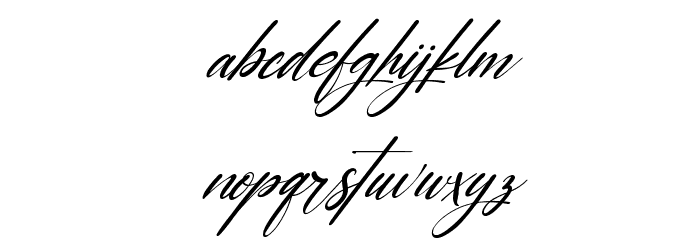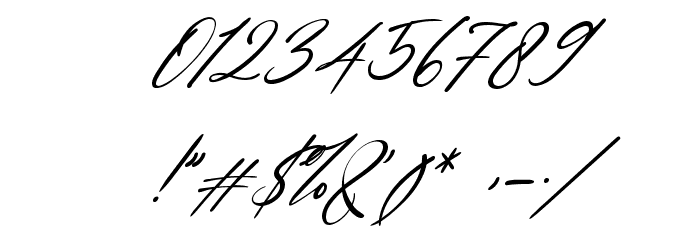
Carrie Gallerie Italic Font
This elegant script font features a flowing, cursive style with a sophisticated and artistic flair. The characters are connected, creating a seamless and fluid appearance. The strokes are smooth and graceful, with a slight slant that adds to the italicized effect. The uppercase letters are tall and commanding, while the lowercase letters are more compact and rounded, providing a balanced contrast. The numerals and special characters maintain the same fluidity, ensuring consistency throughout. This font exudes a sense of elegance and refinement, making it suitable for formal and decorative purposes.
A flowing, elegant script font with a sophisticated, italicized style.
- Proposed Projects: Ideal for wedding invitations, elegant branding, high-end product packaging, and artistic posters.
- Category: Script
- Character Spacing: Tight
- Overall Style: Elegant, Decorative
- Use Case: Logos, Invitations, Decorative text